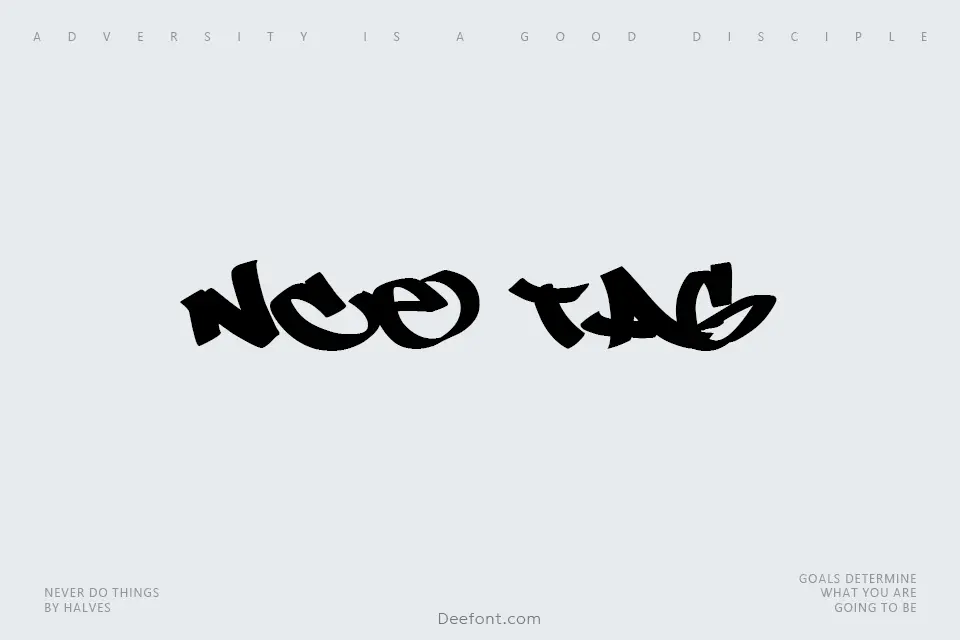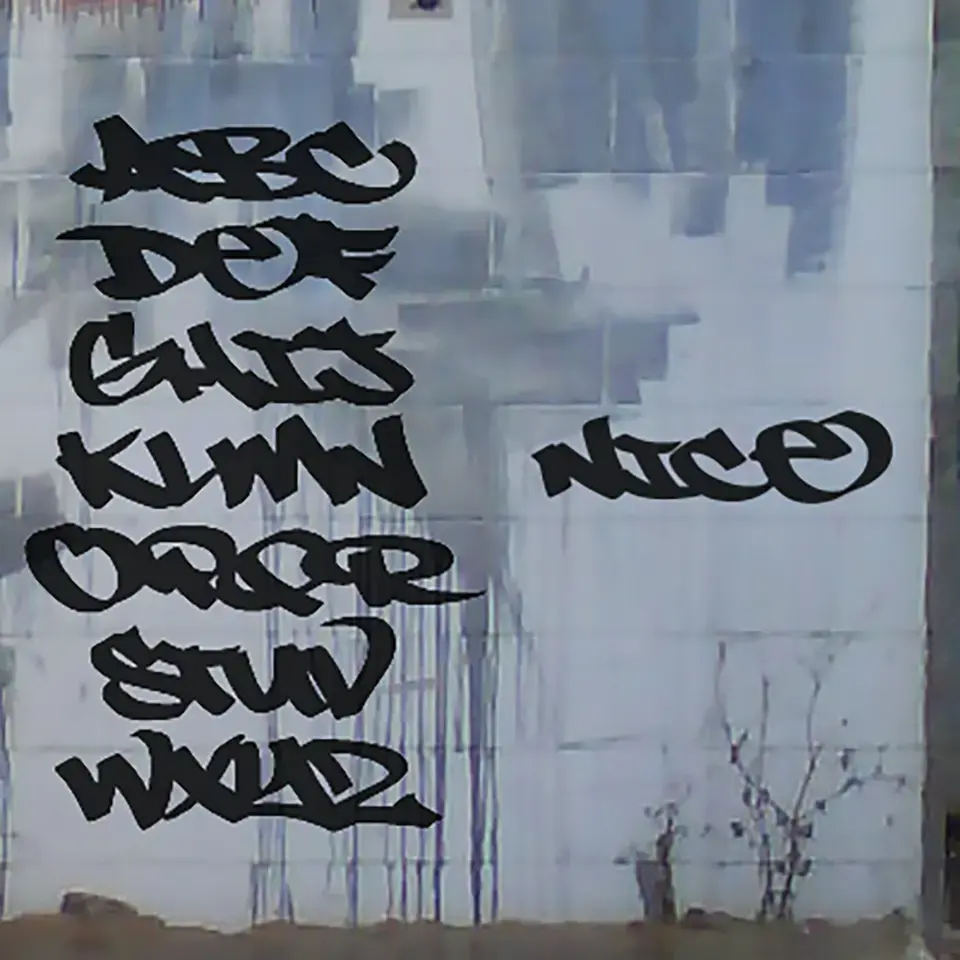
Ne Tag Font
N!ce Tag is a bold and playful graffiti-inspired display font featuring dynamic, flowing strokes and sharp angles that create a sense of movement and energy. With exaggerated curves and high contrast letterforms, this font is perfect for headlines, branding, logos, and urban creative designs. The uppercase letters are particularly striking with their spontaneous style that mimics hand-drawn graffiti tags, making it ideal for streetwear branding, music album covers, and event posters that demand an edgy, contemporary aesthetic.